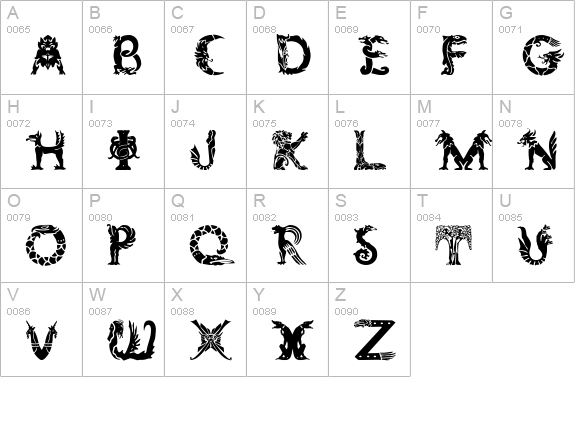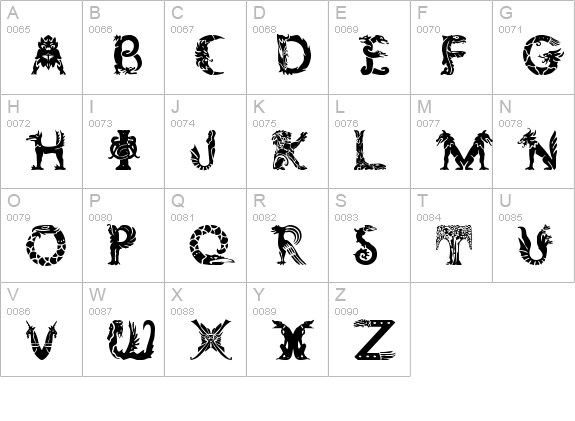
Zoomorphica Font Details
Introducing Zoomorphica font, a stunning display typeface that combines elements of the natural world with sleek, modern design. This unique font features intricate patterns and shapes reminiscent of animal forms, making it both visually captivating and artistically inspired. The fluid lines and intricate details of Zoomorphica font add a touch of elegance and sophistication to any project, whether it be branding, packaging, or creative design. What sets Zoomorphica font apart is not only its striking design but also its accessibility. This font is available for free download at FontsMarket.com, allowing designers and creatives to easily incorporate its unique style into their work without any cost. With Zoomorphica font, you can bring a touch of the wild and the whimsical to your projects, creating a truly one-of-a-kind aesthetic that is sure to stand out. Embrace the beauty of nature and the power of design with Zoomorphica font, and unleash your creativity today. Download this captivating typeface for free at FontsMarket.com and elevate your designs with its enchanting allure.